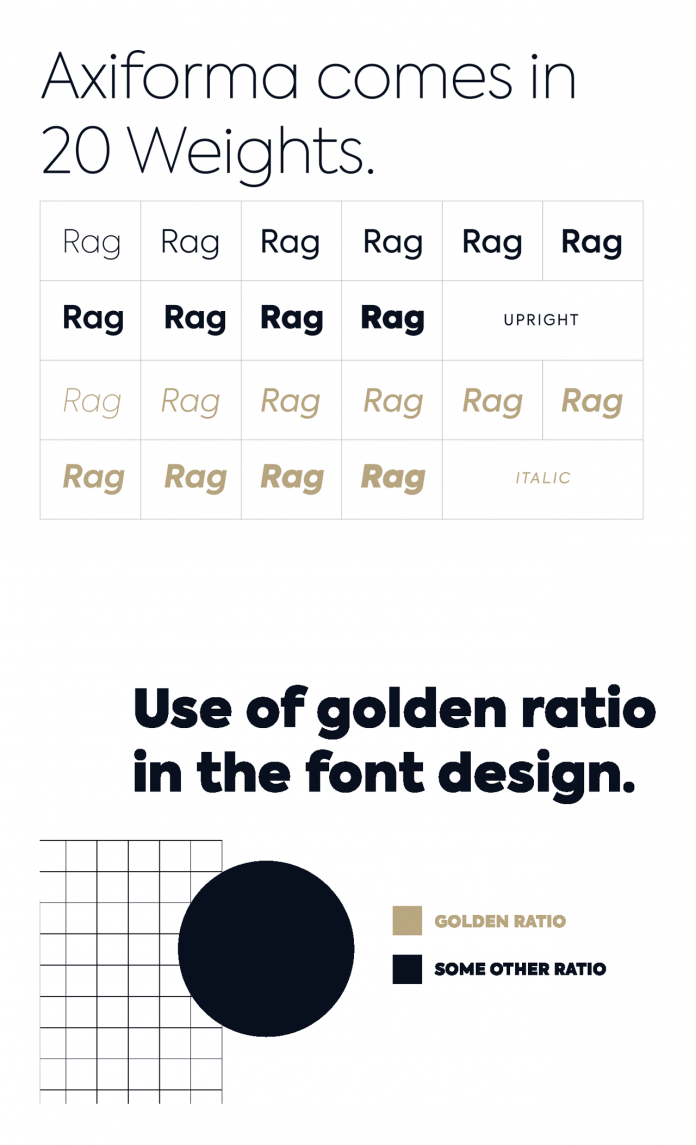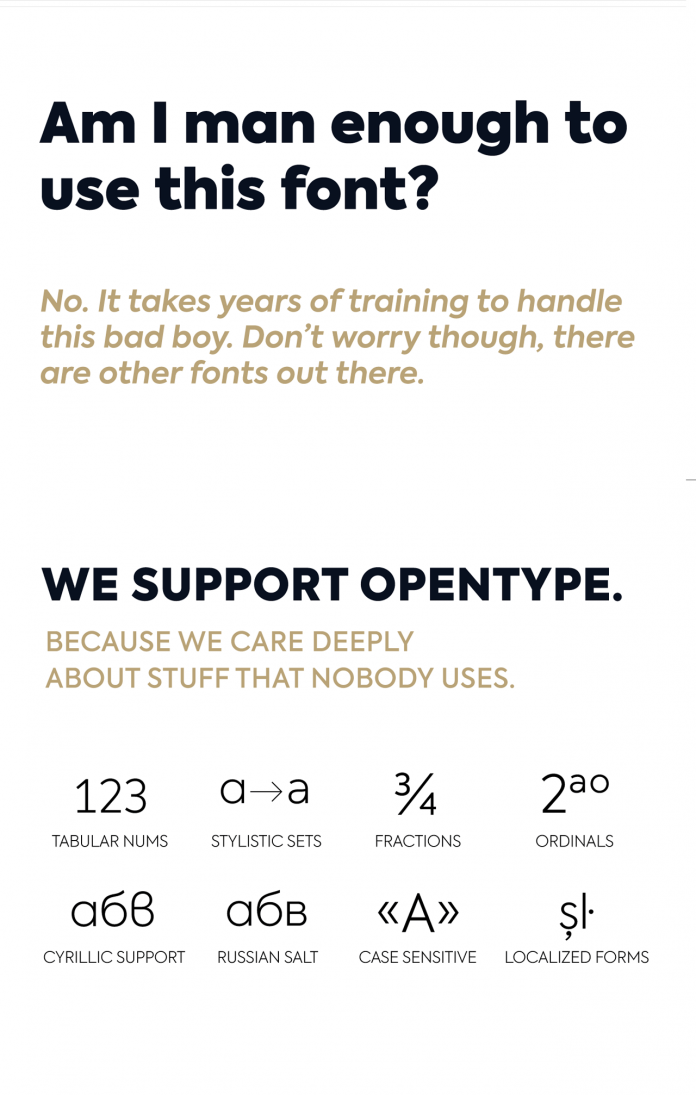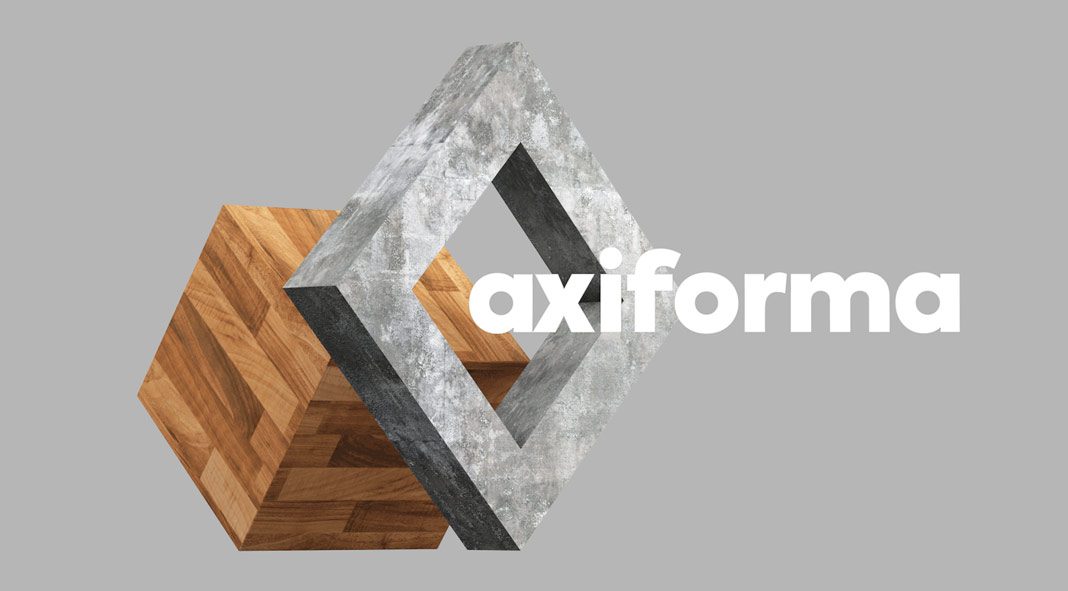
Axiforma, a geometric sans-serif font family designed and published by Galin Kastelov.
The Axiforma font family is based on a robust sans-serif typeface that comes in 20 weights plus matching Italics for each weight. It includes numerous OpenType features such as oldstyle numbers, fractions, case sensitive alternates, localized forms, stylistic sets, etc. In addition to the Latin character set, Axiforma is packed with Cyrillic letters (Bulgarian and Russian). Read more below or click on the following link to purchase the family.
Galin Kastelov, the designer of Axiforma says: “Upon using Axiforma, clients will start to behave differently around you and may even start paying you. Your spouse will start working out again just to gain your attention and your kid will become instantly popular at school. After all, you are using Axiforma and rumors do spread quickly. That’s what we are talking about—raw font power.”
We are not sure if Axiforma will make all of this happen but it’s definitely a great choice for plenty of applications such as branding, posters, headlines, display, presentation materials, websites, logotypes, etc.